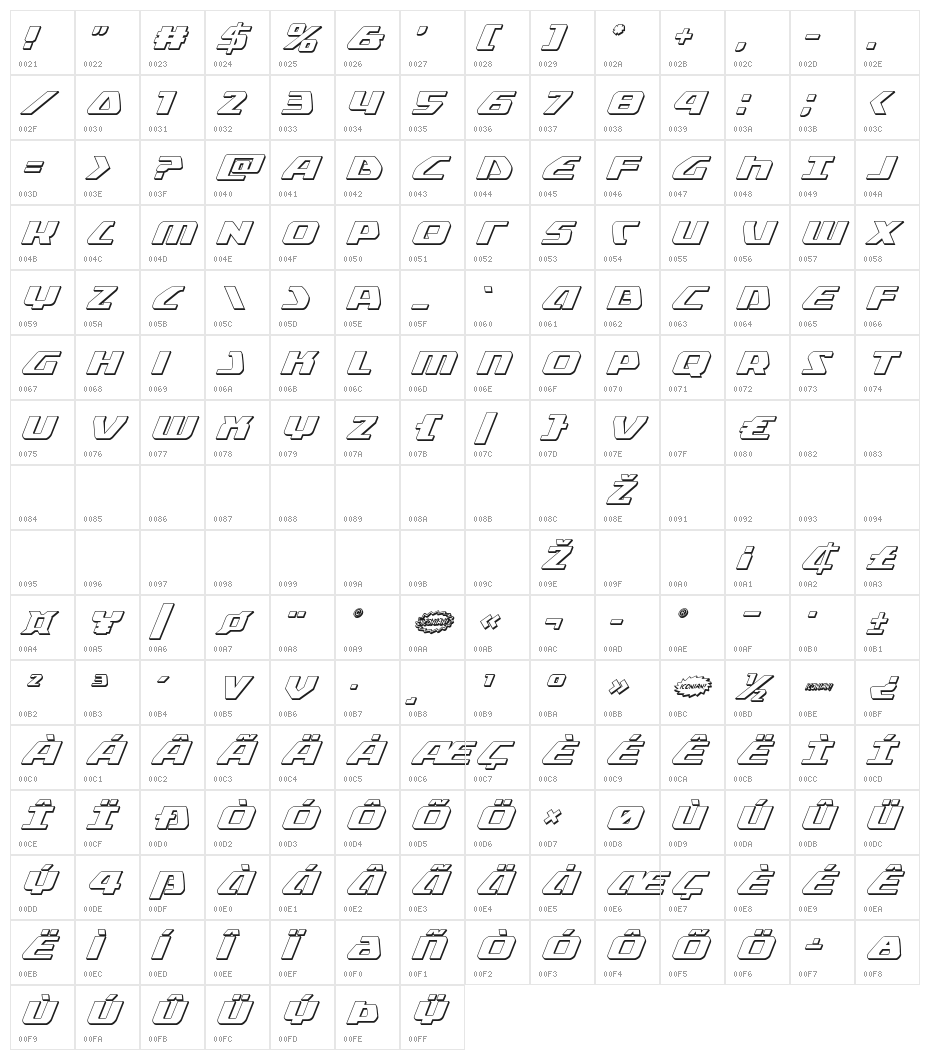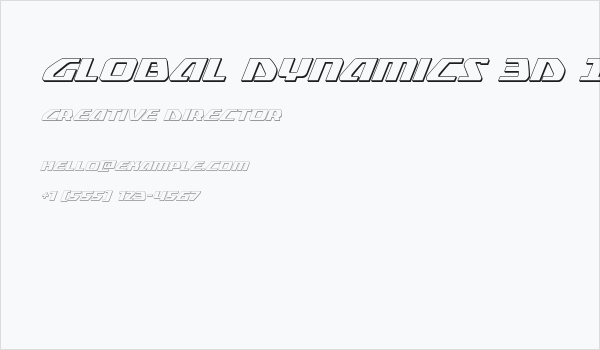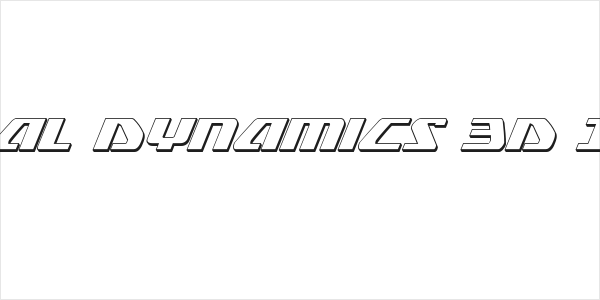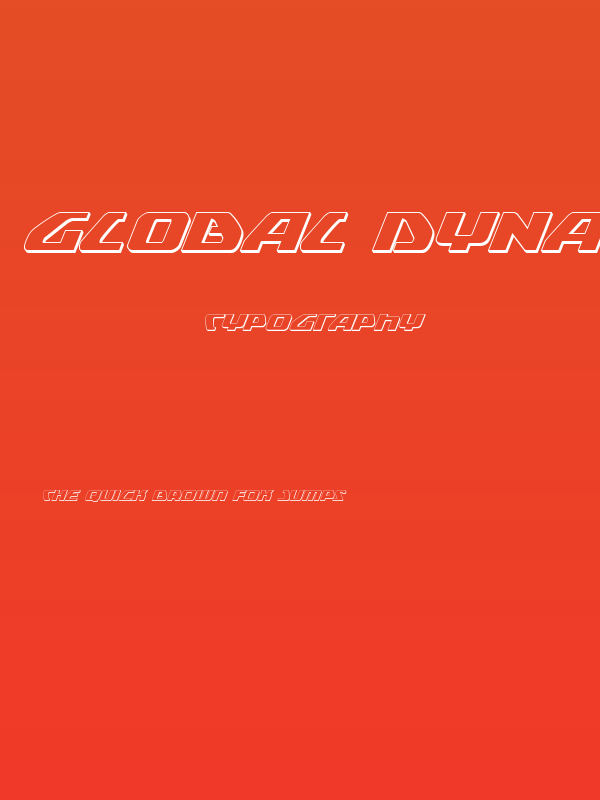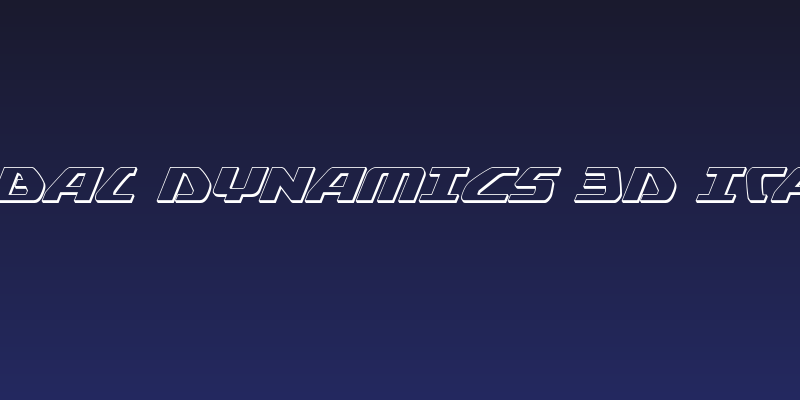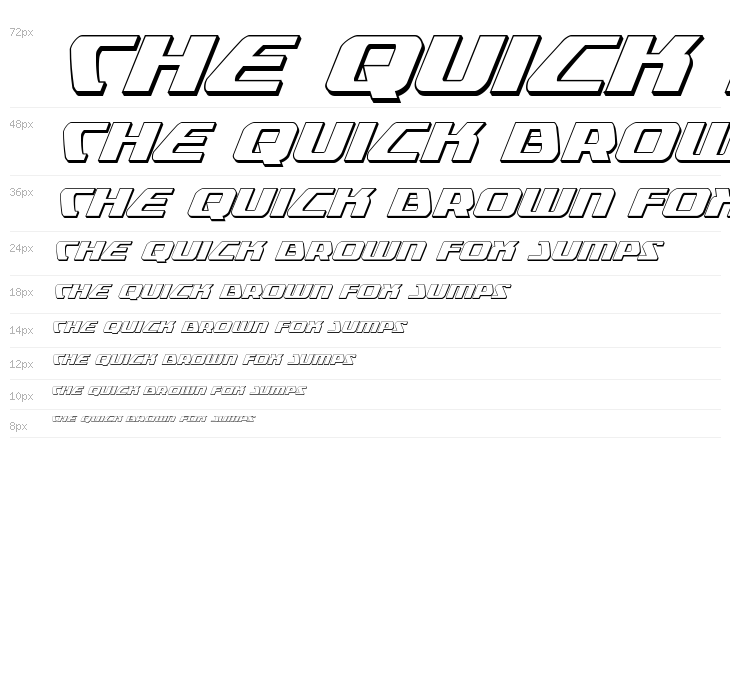
Global Dynamics 3D Italic Font
Global Dynamics 3D Italic Description
This font features a bold, futuristic design with a 3D effect that gives it a dynamic and modern appearance. The characters are italicized, adding a sense of motion and speed. Each letter is outlined, creating a hollow effect that enhances the three-dimensional look. The font has a geometric structure with sharp angles and clean lines, making it ideal for attention-grabbing headlines or logos. The uppercase and lowercase letters maintain a consistent style, and the numbers and special characters are designed to match the overall aesthetic.
| Proposed Projects | Ideal for sci-fi themed projects, technology branding, video game titles, and modern advertising campaigns. |